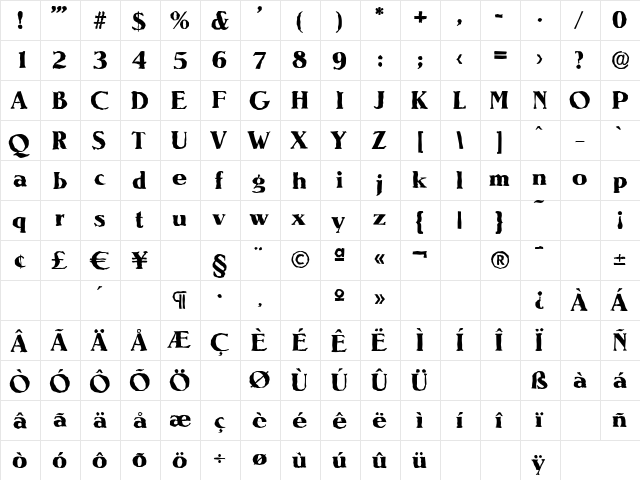
NevadaAntique-Xbold Regular
Design Context for NevadaAntique-Xbold Typeface
NevadaAntique-Xbold wears its vintage influences proudly, with letterforms that recall mid-century signage, classic packaging, and nostalgia-driven design. Its bold stroke weight gives it real presence on the page.
Font Pairing: Combine NevadaAntique-Xbold with a simple slab or neutral sans — period-accurate companions reinforce the vintage feel without competing for attention.
Pro Tip: Use NevadaAntique-Xbold for headlines and pull quotes rather than body copy — its personality is best appreciated in short, focused bursts.